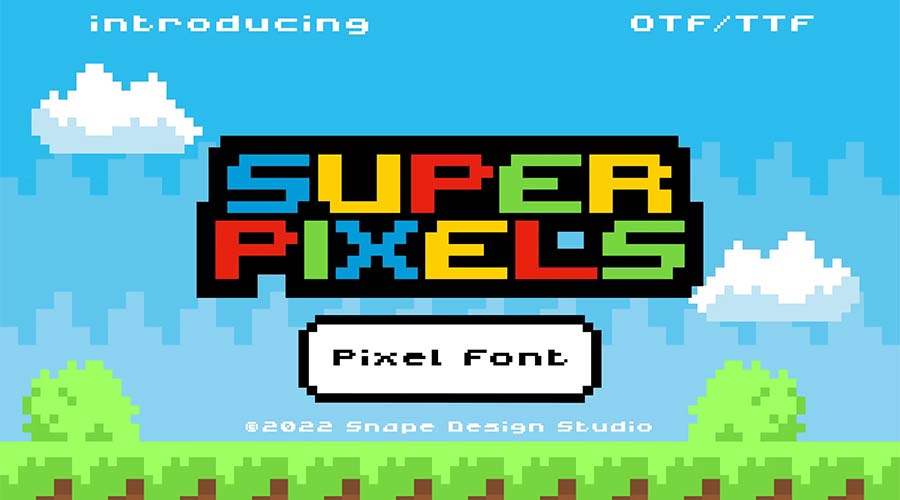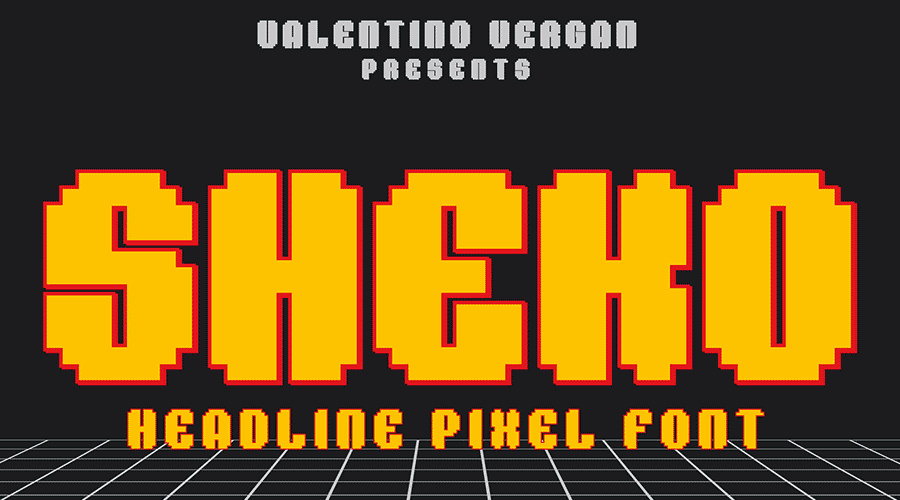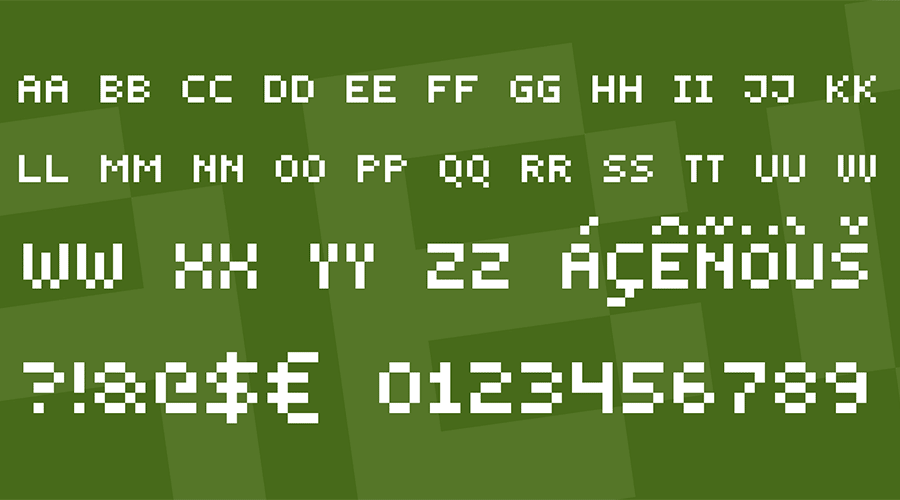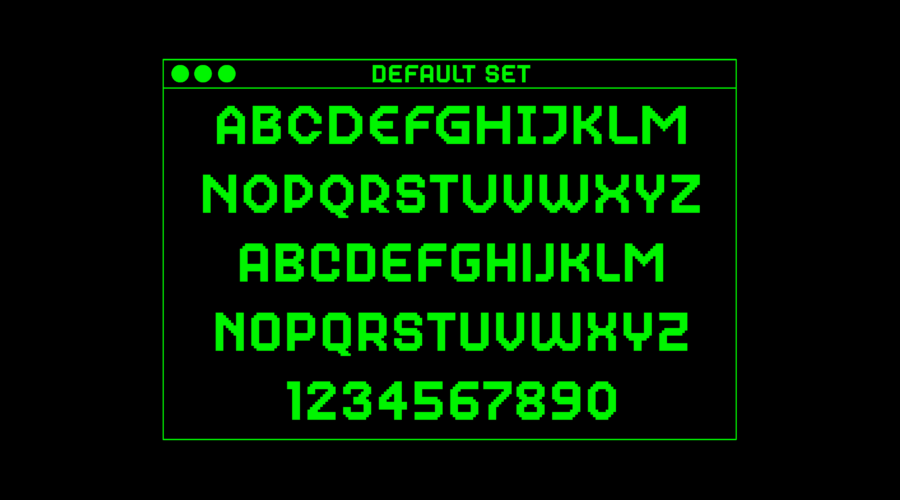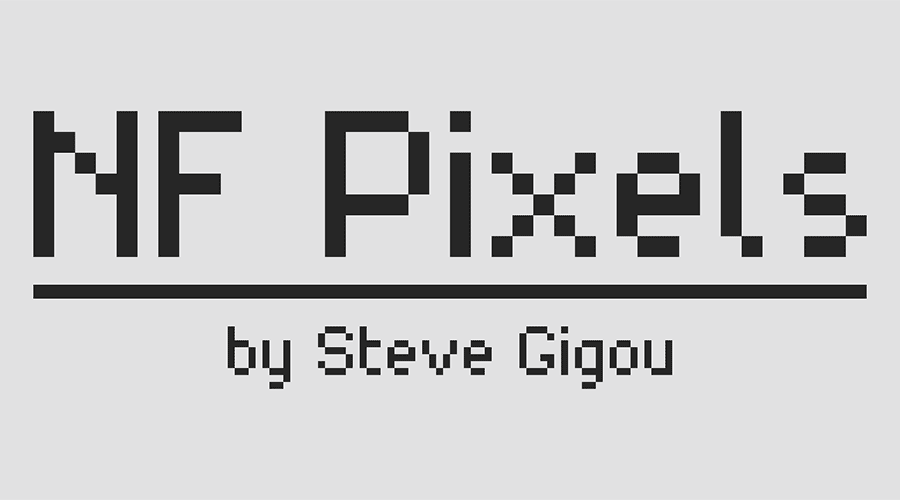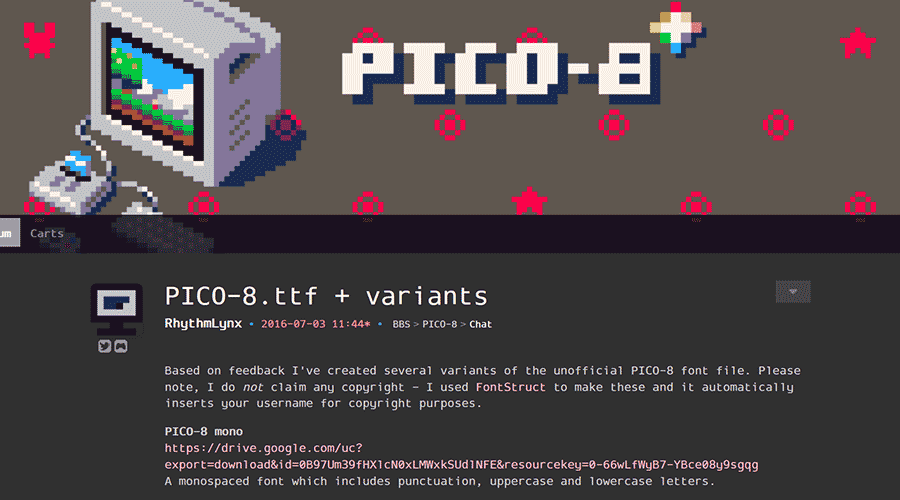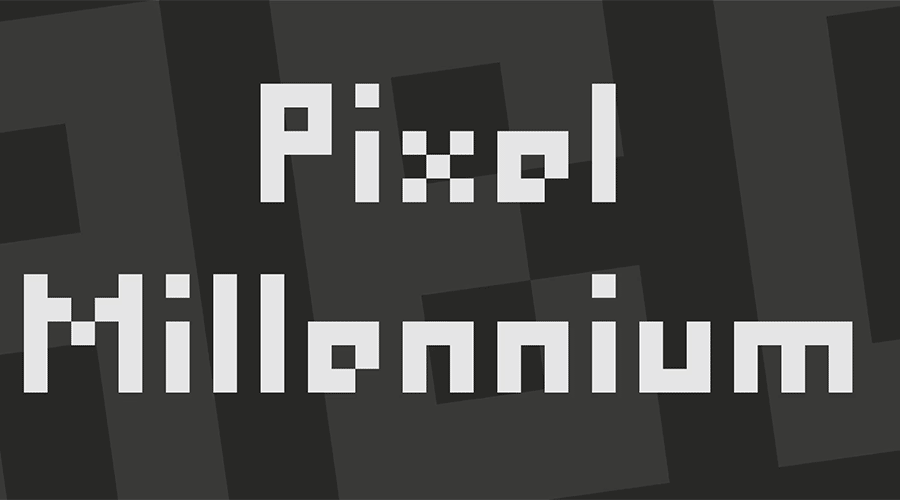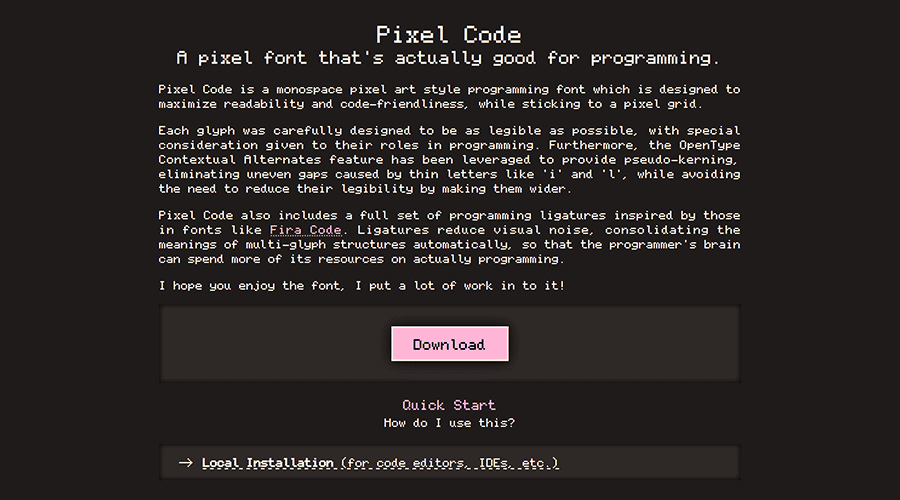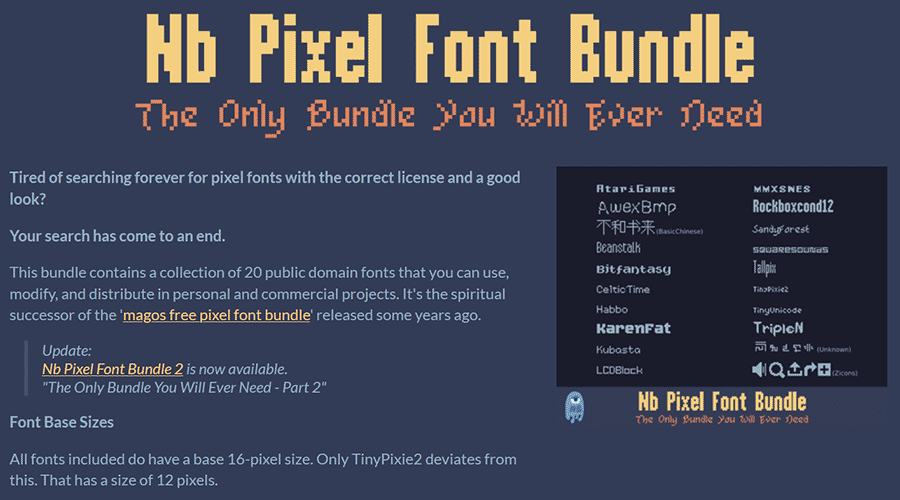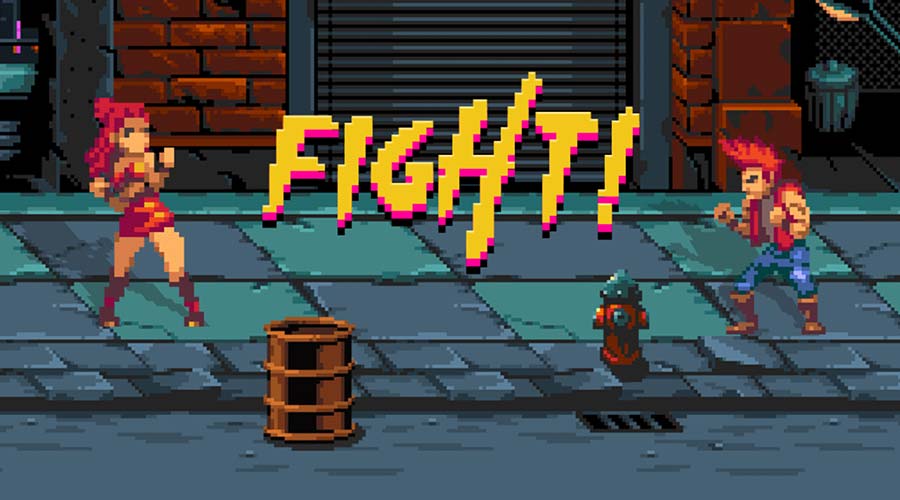
Everyone loves a retro aesthetic. Pixel fonts offer a great way to add this old-school techno look to your projects. They prompt memories of classic video games, computer systems, and plenty of pop culture references.
They’re also more flexible than you might imagine. App development is a natural fit. Or use them as a headline font for your gaming blog. They also add a touch of fun to print materials, digital artwork, and video presentations.
Pixel fonts also feature a wide range of styles. Like other fonts, you’ll find both serif and sans-serif options. However, there are also different levels of thickness and character spacing. Each brings a unique personality to the table.
Enjoy the fun look of this video game-inspired pixel font. Look closely, and you’ll find a delightful mix of squares and rectangles – just like the arcades and consoles of old. The relatively thin weight also keeps things legible.
Here’s a familiar font for fans of a certain classic game series. The package includes a full slate of characters, including punctuation. It’s an excellent choice for adding a bit of nostalgia to your project.
Inspired by old-school fighting games, this typeface features an action-packed look. Its bold and italicized text would be great for headlines and banners. Just don’t get too carried away with your street-fighting and knock over a lamp!
Bitroad is a mashup of styles representing the 1980s and 2000s. The font makes a bold statement while staying easy to read. It includes multiple typestyles and is available in several popular file formats.
Bold retro stylings are a hallmark of Sheko. Use it in places where you want to make the most impact. It features tight kerning that’s perfect for headlines and titles.
This all-caps pixel font will do wonders for your retro-themed designs. Each character features a variable outline that adds authenticity. It looks great in any size, and its low-contrast style offers a unique touch.
Add some slanted perspective to your project with this 8-bit typeface. Dotemp is a serif font that faithfully recreates the look of classic computing apps. It’s a variable font with regular and pixel styles.
Here’s a font that mixes elements of the old and new. It’s a pixelated font, for sure. However, it’s highly legible and includes some anti-aliasing. This one is a great fit when a more subtle approach to retro is in order.
Talk about unique, here’s a hand-drawn pixel font. The result is a fun typeface with classic looks and a decidedly modern charm. It also includes plenty of special characters to make it a versatile pick.
Travel back to the days when arcades ruled with this classic typeface. You won’t find any fancy effects here. The look is simple – a good representation of what once was. Sometimes, that’s all you need to make a statement.
Here’s a font with a twist on the pixelated style. It features a rounded look to soften those sharp edges. It’s a nice alternative to the more brutalist options on this list.
Tiny5 goes all out when it comes to pixelation. The characters are chunky, and the shapes are free of anti-aliasing. There’s simply no compromise. Therefore, reserve this one for use on headlines and banners.
Silver was built with game developers (and gamers) in mind. The multi-language font includes gamepad buttons with full keyboard and mouse prompts. Use it in your apps to give users an authentic experience.
Be bold and tell a story with this thick pixel font. It’s aimed at game developers but is also a natural fit for website hero areas. It’s another handy choice for your typography toolbox.
Pixelify Sans is a no-nonsense typeface that comes in four distinct font weights. That provides more flexibility than your average pixel font. It can be used in both large and small sizes and maintain readability.
You may notice that Dogica is easier on the eyes than most pixel fonts. It offers monospaced and kerned versions. Either way, you’re getting a legible font that can be used at the tiniest sizes. That makes it an all-purpose winner.
Silkscreen is a cross-platform pixel font built for websites and online apps. It’s an all-caps font with extra spacing between characters. It would work beautifully for the text headers on your tech blog.
Need a pixel font fit for smaller sizes? This one fits the bill with the ability to stay legible no matter how low you go. You might use it for those little design accents on websites and print documents.